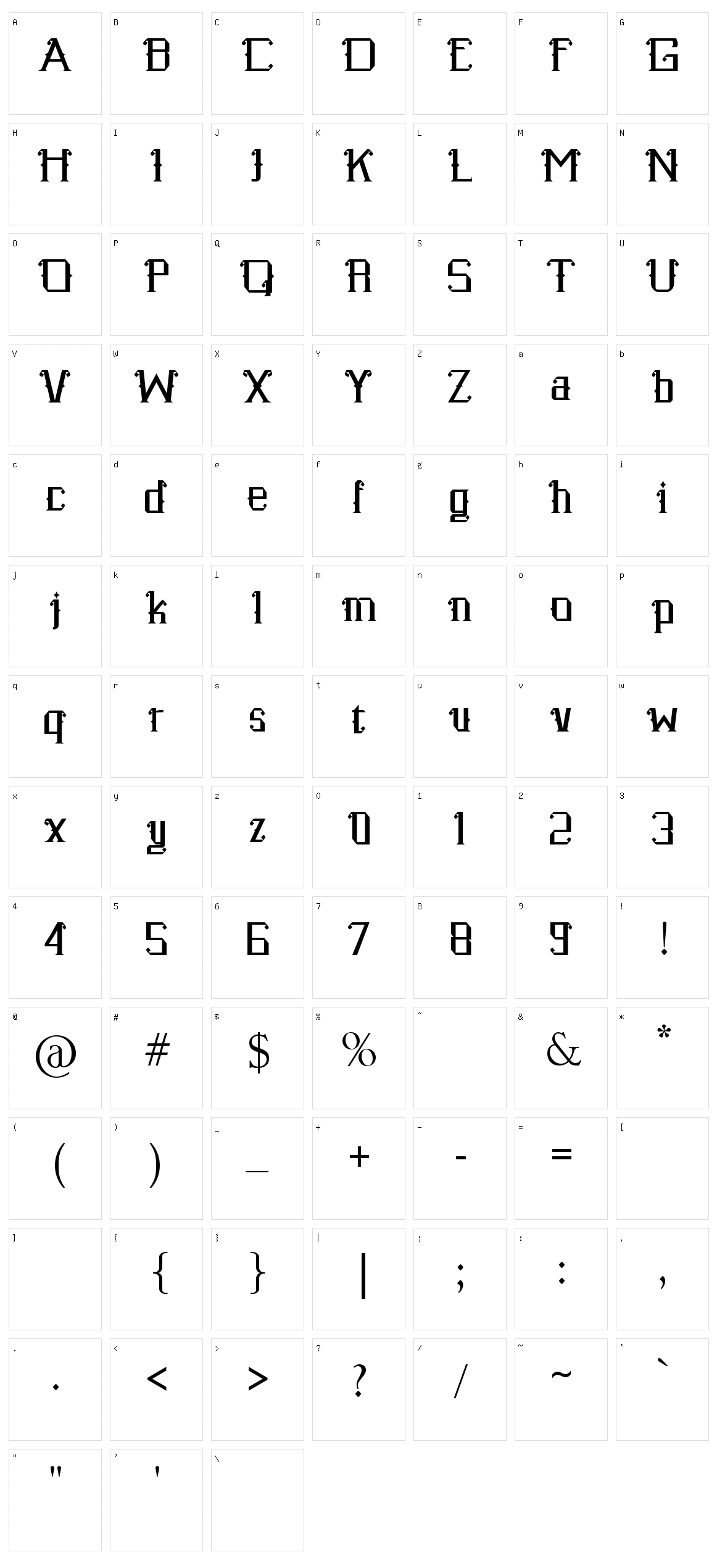
The free font Senzana is carefully designed by Gilang Senzana, showcasing a thoughtful balance of creativity and usability and belongs to the Gothic font family. When you download the ZIP file, it contains only 14.48 KB of font files, making it lightweight and quick to download. Please review the license details below to understand permitted usage and distribution rights. If license information is not available, we recommend using this font for personal projects only or contacting the author directly for commercial usage permissions.